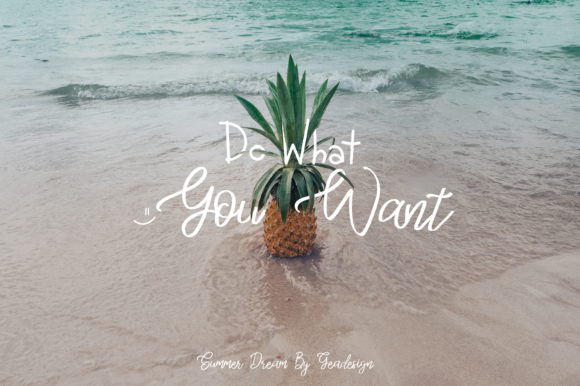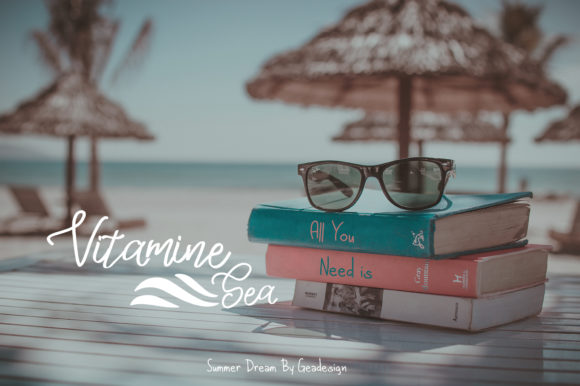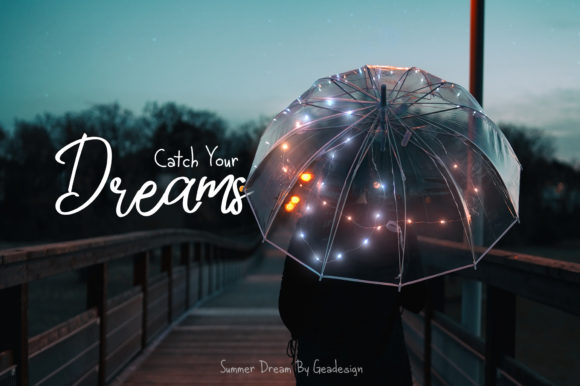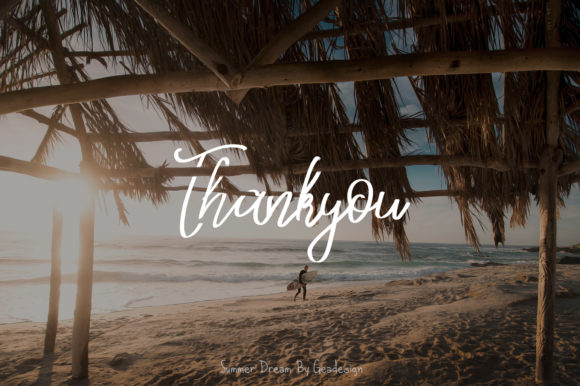
Summer Dream Font
About Summer Dream Font
Summer Dream is a dreamy and fun handwritten font with a casual feel. It will add a personal touch to any crafts idea!